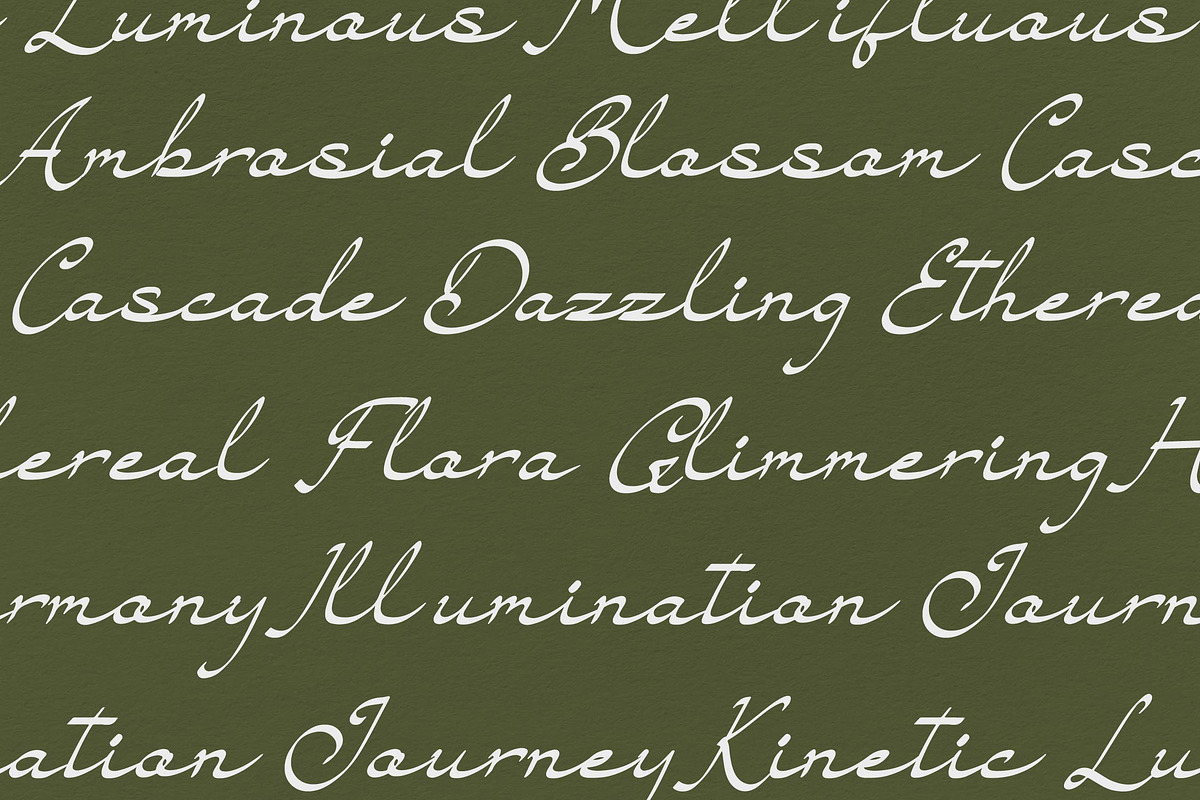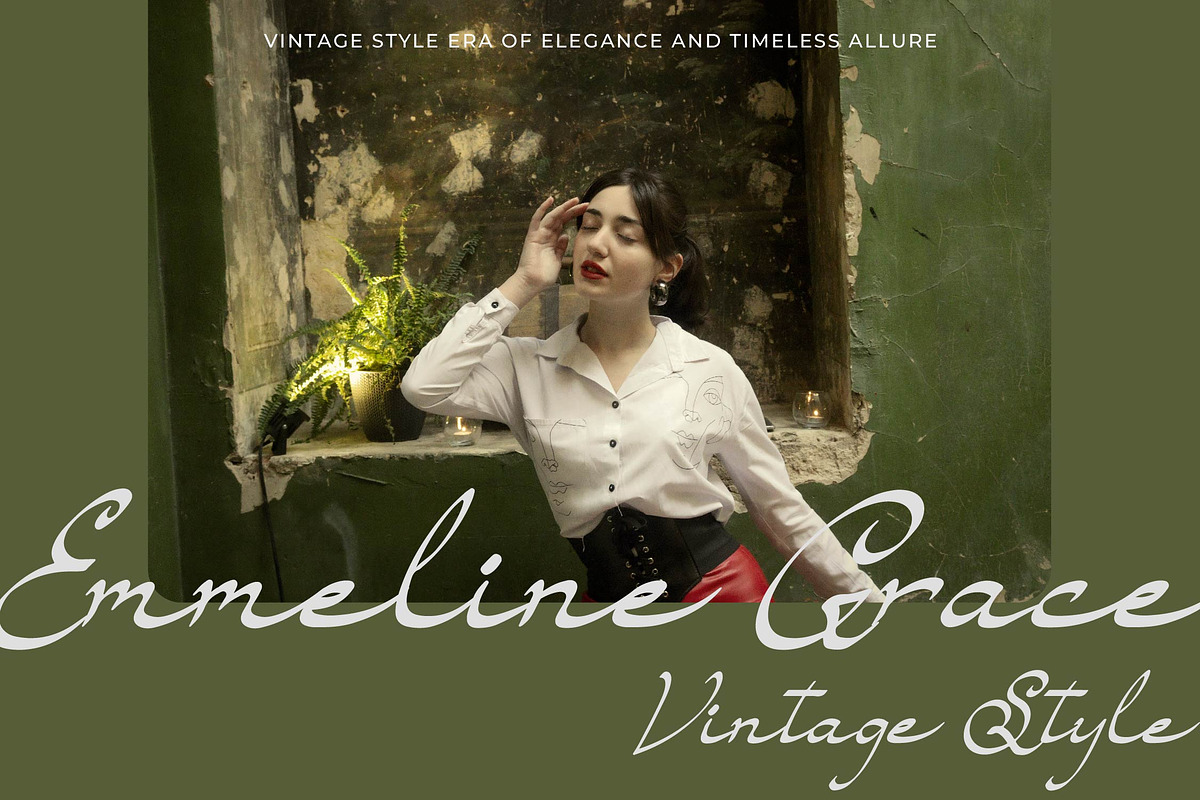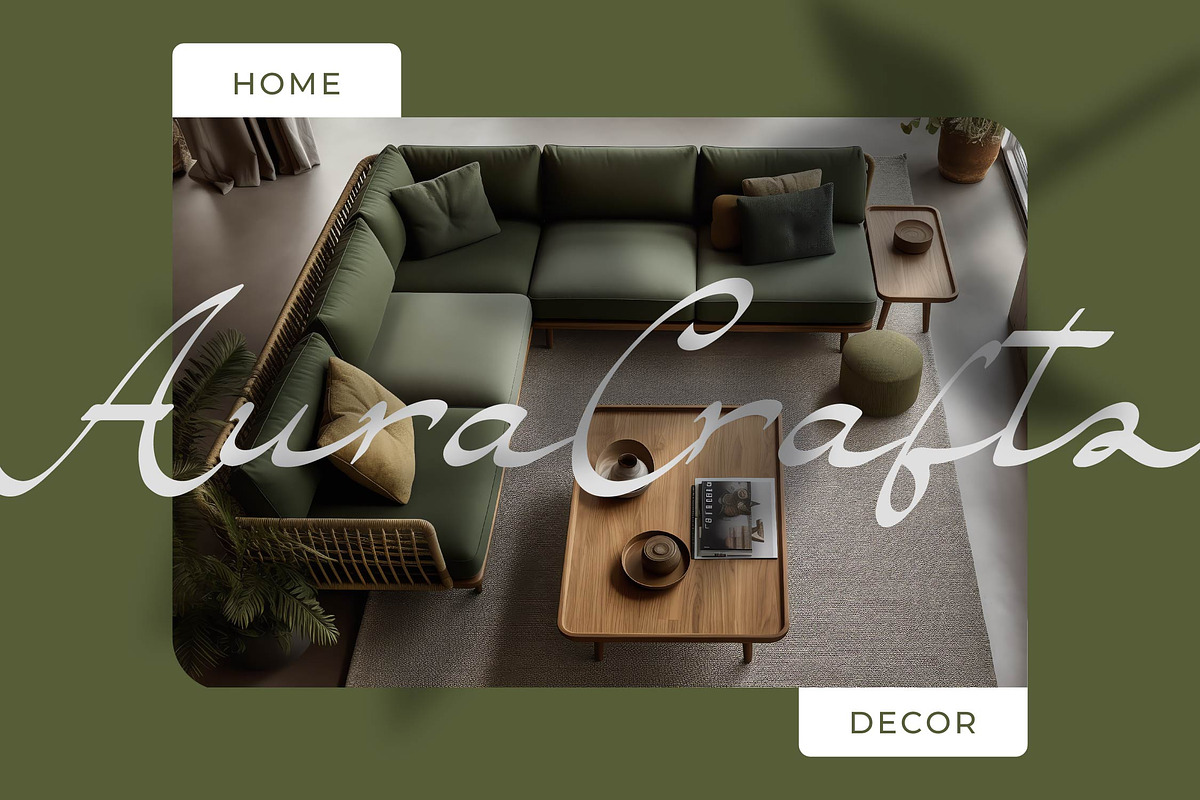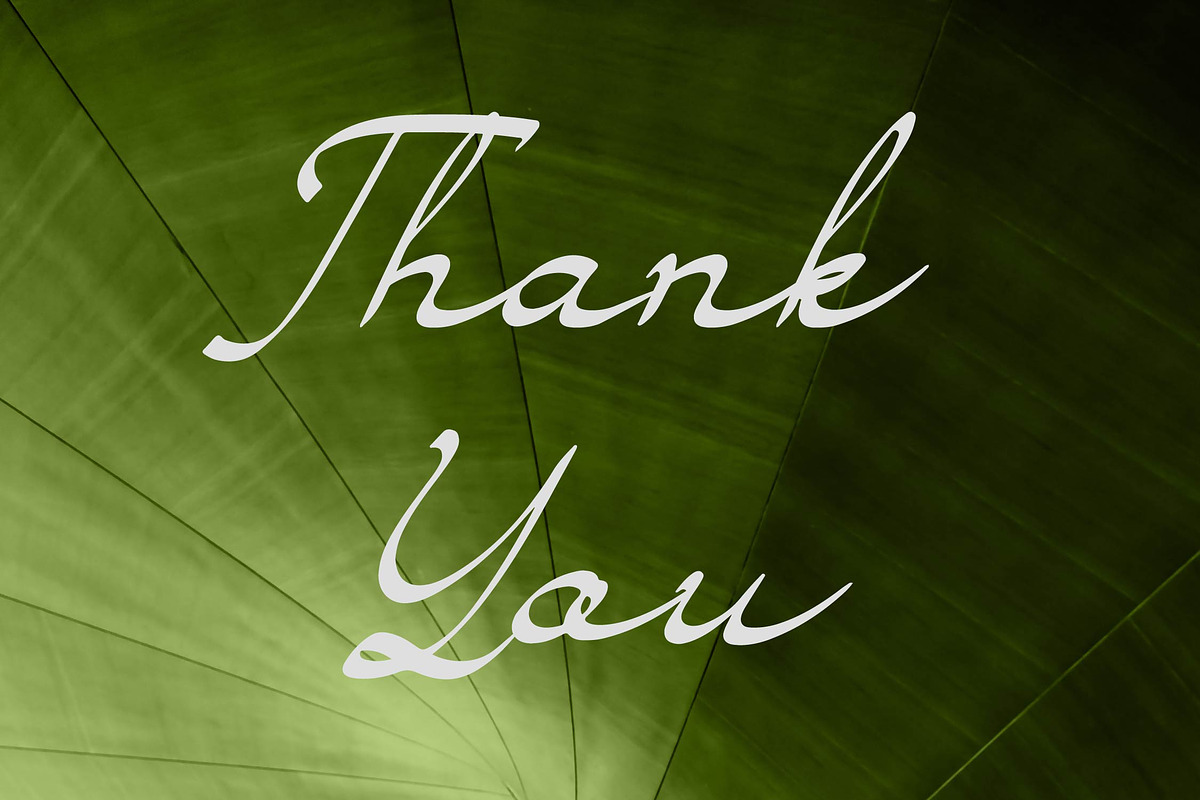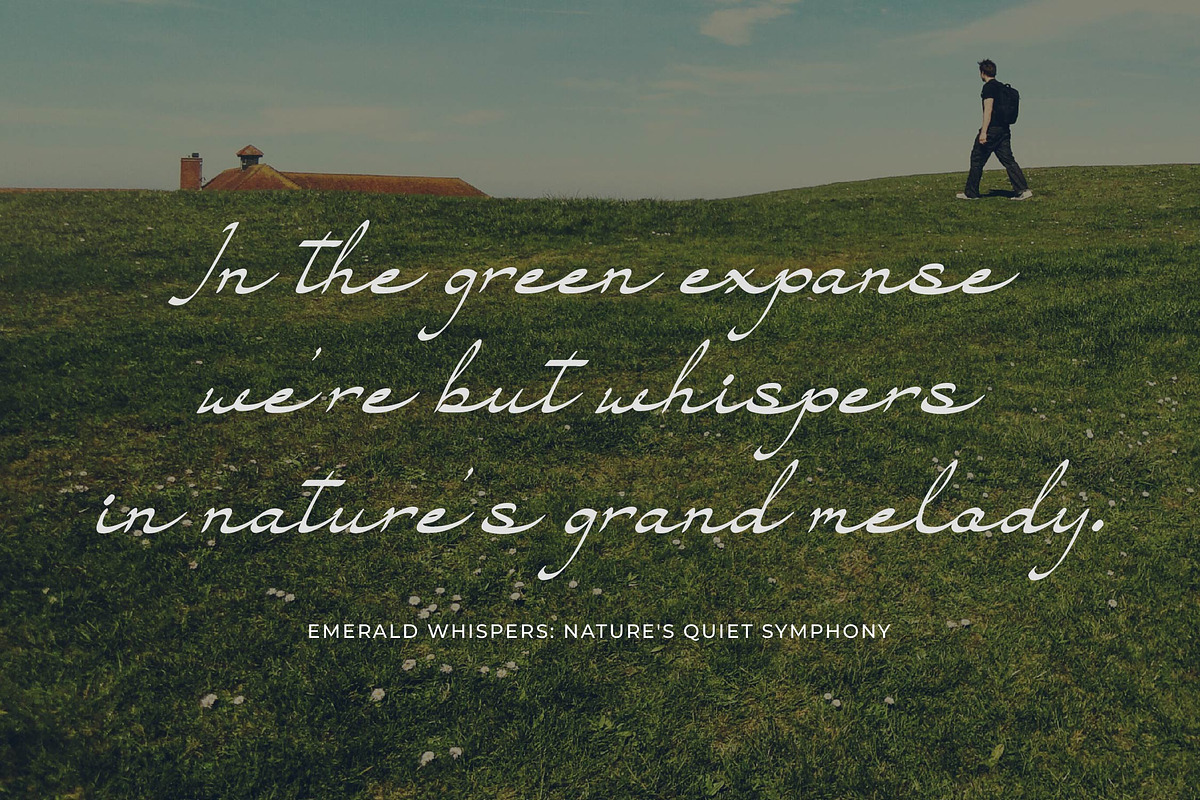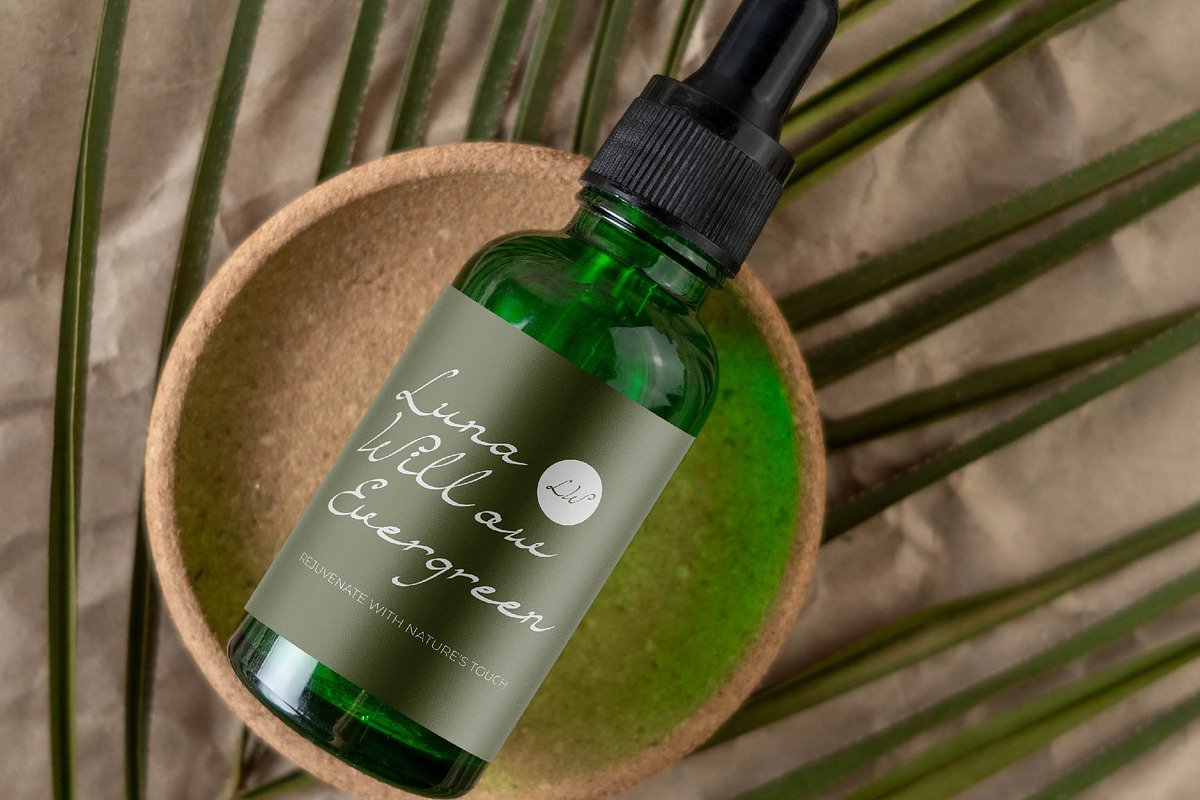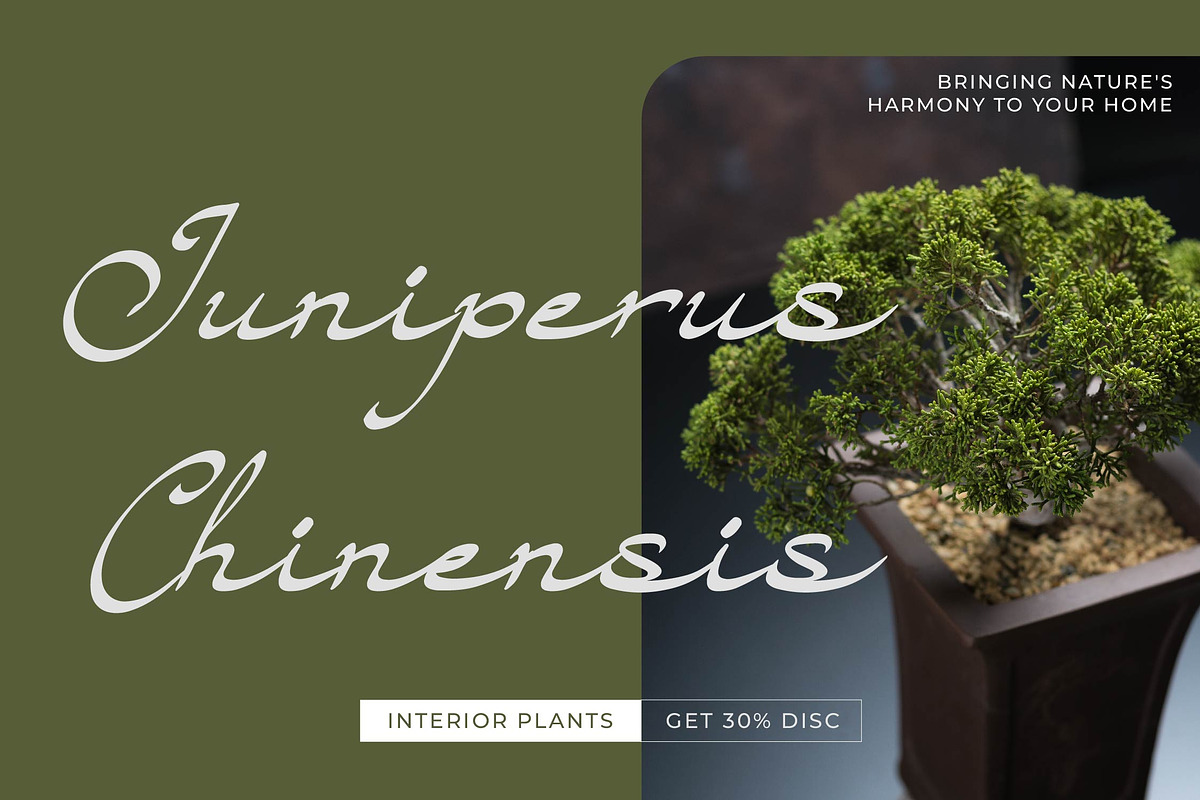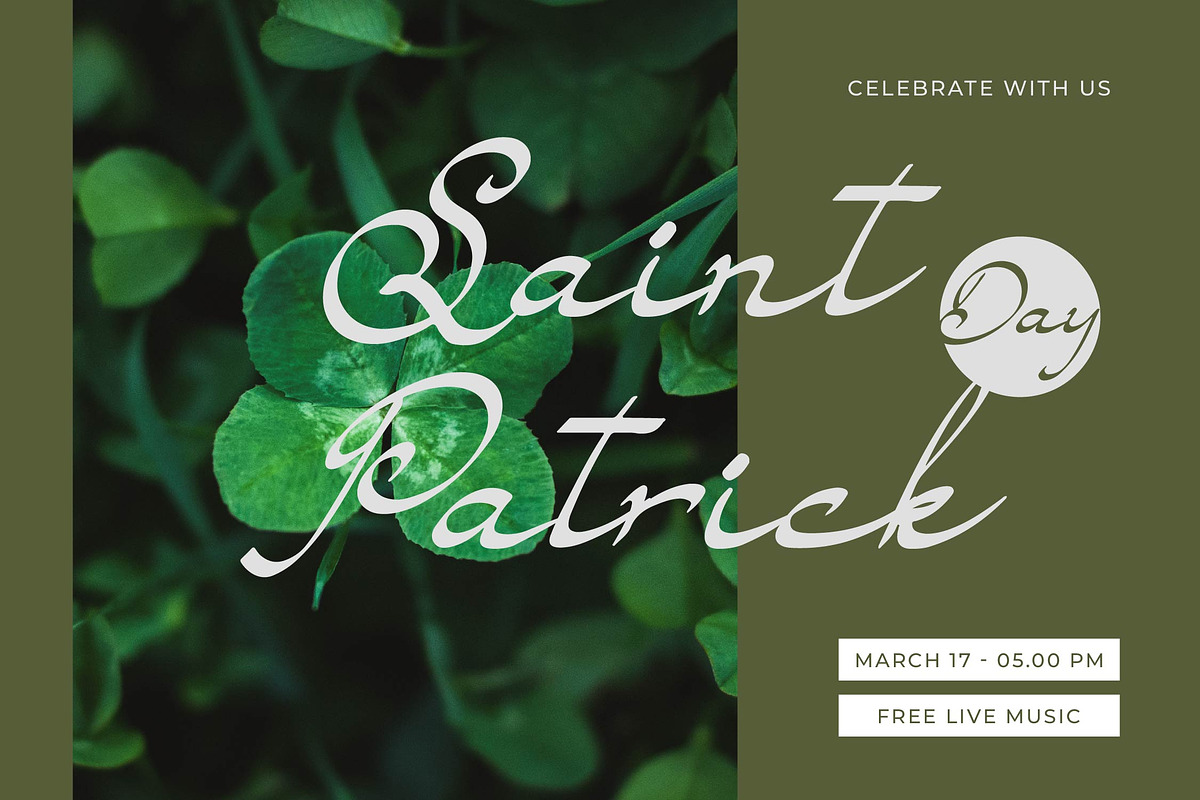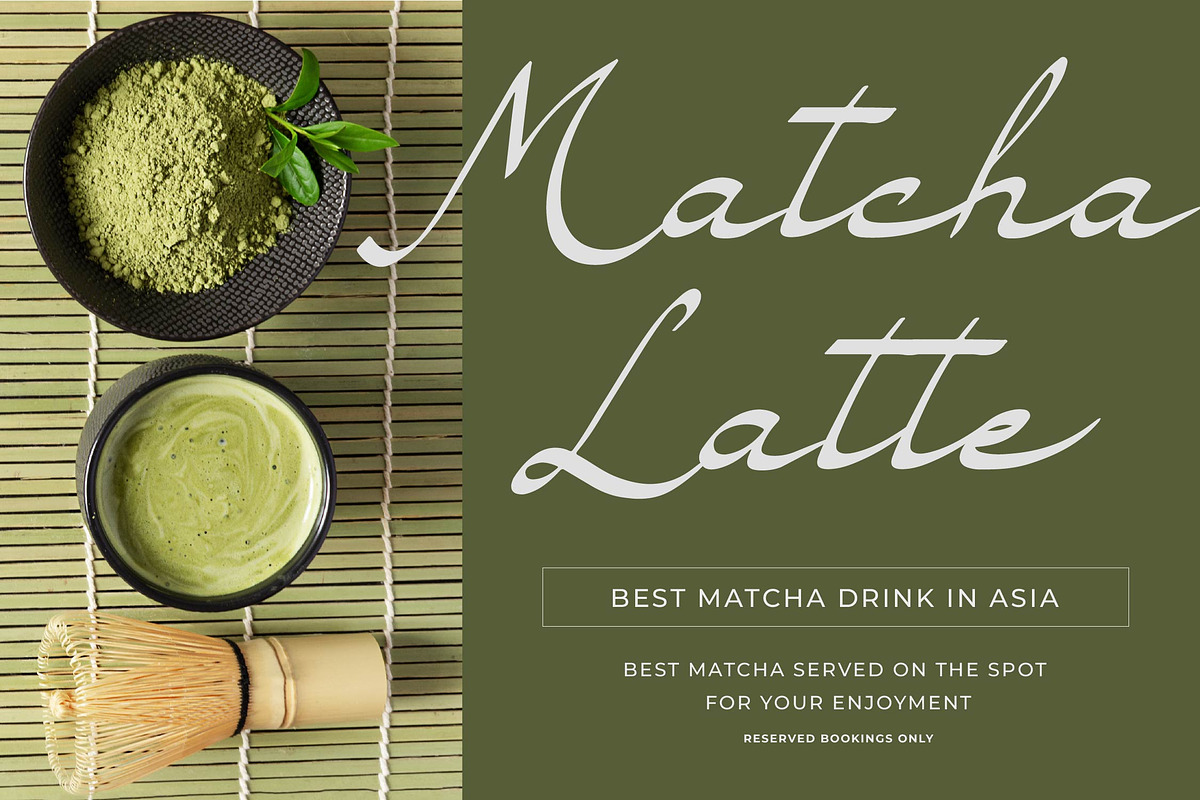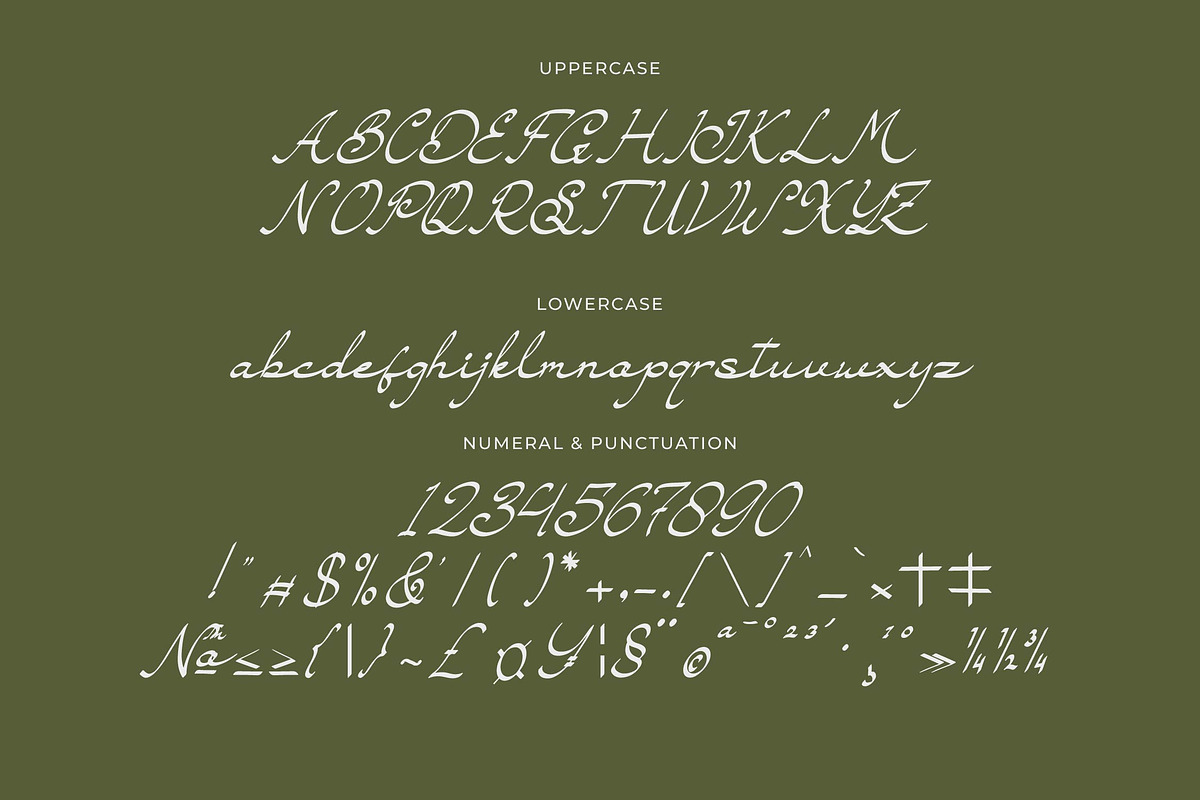
Sandoria Dawnvale Script Font
Sandoria Dawnvale Script Font , from Denustudios, is a Luxury Script font, suitable for any projects such as: logos, branding projects, homeware designs, product packaging, mugs, quotes, posters, shopping bags, t-shirts, book covers, name card, invitation cards, greeting cards, label, photography, watermark, special events, and all your other luxury and beautiful projects that need a Luxury Script taste. ____ Product Content : • TTF • OTF • WOFF Features : • Uppercase and Lowercase • Numerals • Punctuations (OpenType Standard) • Accents (Multilingual Characters) • Ligatures and Alternative Style Stylistic Set • Works on PC and Mac • Simple installations Thank You.